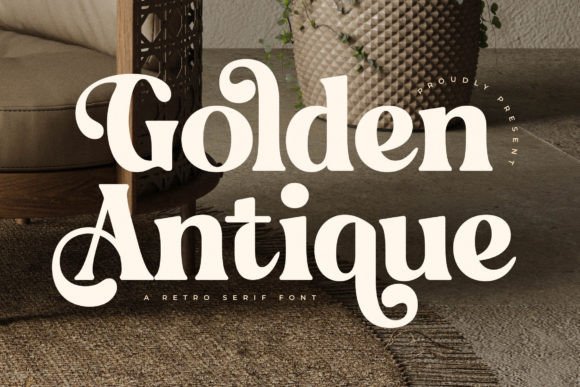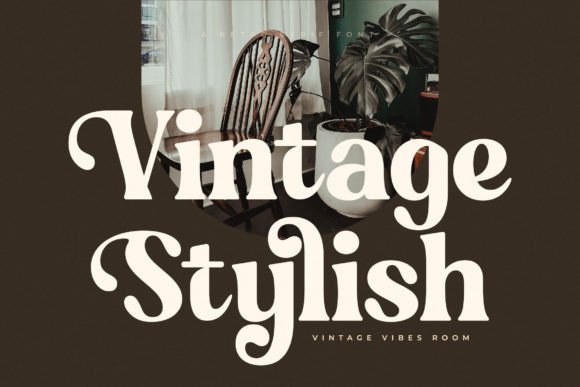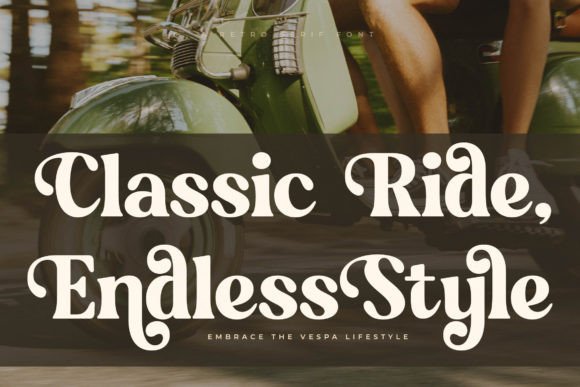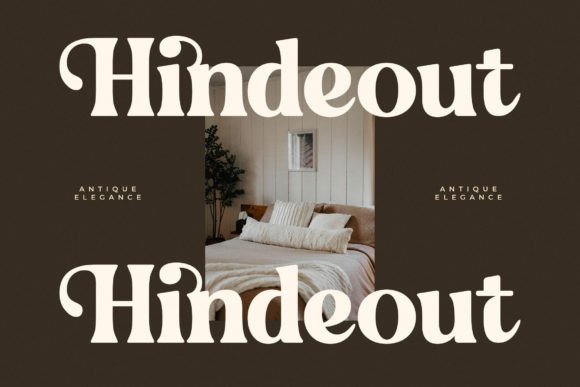
Golden Antique Font
About the Golden Antique Font
The Golden Antique Font is here to transform your projects with its distinctive character and style. Golden Antique – Retro Serif Font , from Letterena, is a Luxury Serif font, suitable for any projects such as: logos, branding projects, homeware designs, product packaging, mugs, quotes, posters, shopping bags, t-shirts, book covers, name card, invitation cards, greeting cards, label, photography, watermark, special events, and all your other luxury and beautiful projects that need a Luxury Serif taste.
Golden Antique’s strong serifs and confident letterforms make it ideal for headlines, logos, and short-form text in branding materials and packaging. Its luxurious feel works well for high-end products and sophisticated projects. However, its decorative nature makes it less suitable for body text or UI elements requiring high readability.
This font projects a sense of refined elegance and vintage charm. It pairs well with clean sans-serif fonts like Helvetica or Open Sans for a modern contrast, or with a playful script font such as Pacifico for a more whimsical feel. For a classic approach, consider pairing it with a more traditional serif like Garamond.
Avoid using Golden Antique in situations requiring extensive text blocks; its ornate details can hinder readability. Its strength lies in making a statement, not in delivering large quantities of information.
Golden Antique Font Usage Examples
Golden Antique Font Example